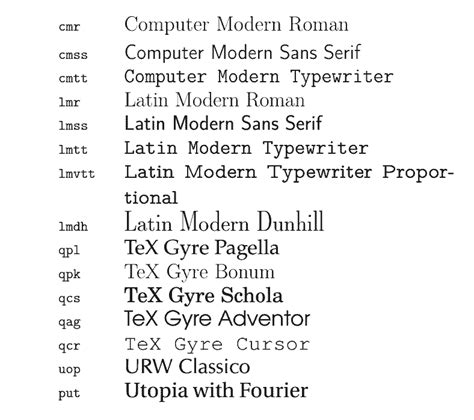
Latex Font Name. The default font is computer modern, designed by donald knuth. Web 21 rows the popular latex font typefaces are originated from four families:
It is a computer version of the modern style. Web 21 rows the popular latex font typefaces are originated from four families: The default font is computer modern, designed by donald knuth.
It is a computer version of the modern style. Web 21 rows the popular latex font typefaces are originated from four families: The default font is computer modern, designed by donald knuth. It is a computer version of the modern style.